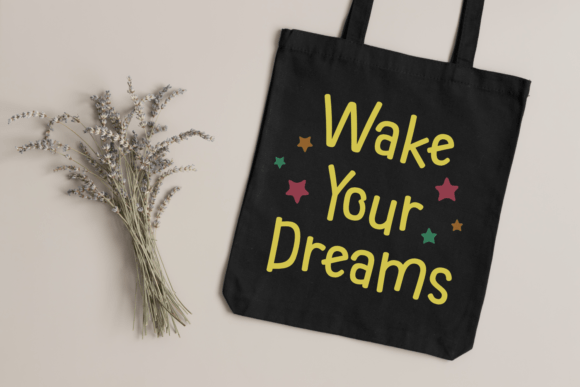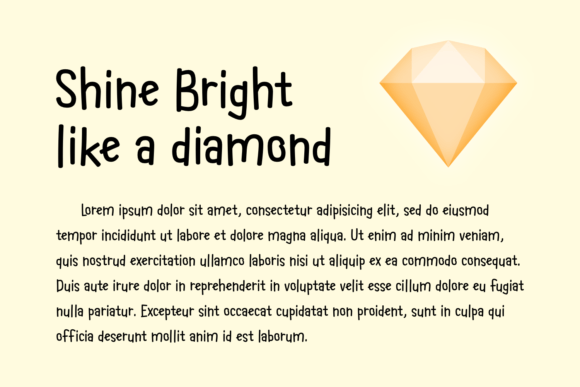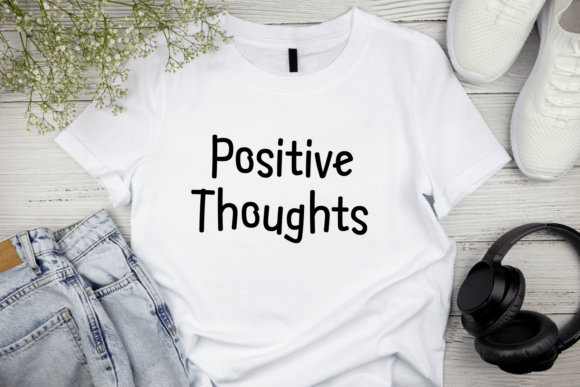
The Whimsical World of Always Shining Font
I’ll never forget the moment I stumbled upon Always Shining – a handcrafted typeface that instantly transported me to a world of carefree creativity. I was working on a project for a children’s educational workbook, and my designer brain was stuck. I needed a font that would bring a playful, yet elegant vibe to the pages. That’s when I discovered Always Shining, and it was love at first sight!
As a designer, I’m always on the lookout for fonts that can elevate my projects. Here’s what I love about Always Shining:
- ✨ Whimsical, handcrafted feel that adds a touch of personality to any design
- ✅ Clean and elegant design that’s perfect for educational materials, children’s books, and more
- 🌈 Accents for most Eastern European characters, making it a versatile choice for global projects
- 💫 OpenType features and glyphs that allow for creative experimentation
Of course, no font is perfect, and here are a few quirks to keep in mind:
- 🤔 Limited availability of certain stylistic alternates, which can be a bit limiting for some projects
- ⚠️ May not be the best choice for very formal or corporate designs, as it leans on the playful side
The Story Behind Always Shining
According to the designer, Always Shining was inspired by the carefree scribbles found on notebook margins. The goal was to create a font that would bring a touch of whimsy and playfulness to educational materials and children’s books. With its clean design and elegant feel, Always Shining has become a beloved choice among designers and educators alike.
| Font Name | Always Shining Font |
| Author | Situjuh |
| What type of projects is Always Shining best suited for? | Always Shining is perfect for educational materials, children’s books, and creative projects that require a playful, yet elegant font. |
| Can I use Always Shining for branding and advertising? | While Always Shining is a versatile font, it may not be the best choice for formal or corporate branding. However, it can work well for creative and playful advertising campaigns. |
| Does Always Shining support OpenType features? | Yes, Always Shining supports OpenType features, including glyphs and stylistic alternates. |
In conclusion, Always Shining is a captivating font that brings a touch of whimsy and elegance to any design. With its clean design, playful vibe, and OpenType features, it’s no wonder it’s become a favorite among designers and educators. Whether you’re working on a children’s book, educational material, or creative project, Always Shining is definitely worth exploring.